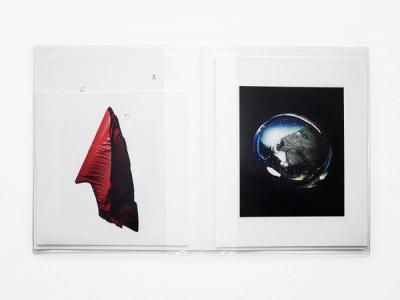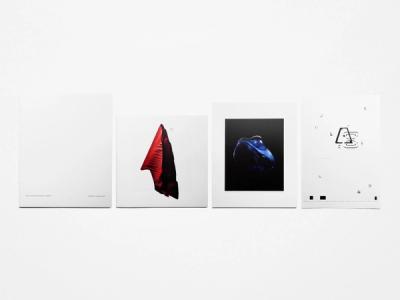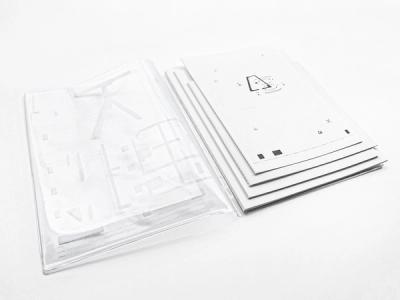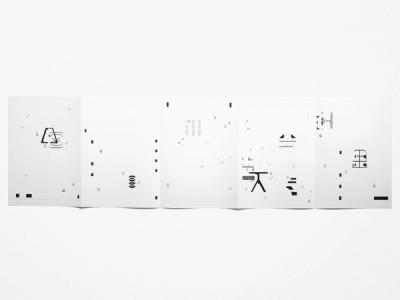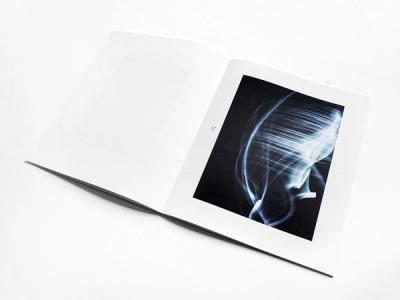
UNE AUTRE ORIGINE DU MONDE
Une autre origine du monde is a photography book by Romain Lenancker edited by Diorama Type Partners which is an organic si-fi research through sculptures and lights (no 3D). Micro to macro, in a lost of scales, Romain Lenancker explore notion of life, materials, and other planets. As a scientific ouvrage, the alien univers is also represented by the typographic research that accompanied the images. Tailor-made cryptic alphabet dialogue into the summary with the editorial as a card of the galaxy that Lenancker rises with beauty.
Une autre origine du monde shows 4 years of work, a journey through a cosmic saga, a reinvented cartography. In Lenanckers' studio, the creative process is taking place around scultptures, lights, staging, then photography comes erase it all to makes place to an epure style. It makes us forget the handicraft, the object is decontextualized by his scale and his material. All those competences (set, model making and photography) are controlled by Romain Lenancker so there is a certain freedom in the creative process. These images are as much particles, planets, bubbles, as waves filling the universe, leaving it open to interpretation. Between a formal abstraction and a place for every object in a personal alphabet.
Romain Lenancker
Marie-Mam Sai Bellier (Diorama Type Partners) and Guillaume Sbalchiero